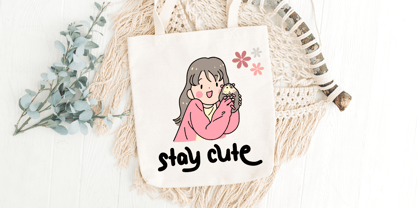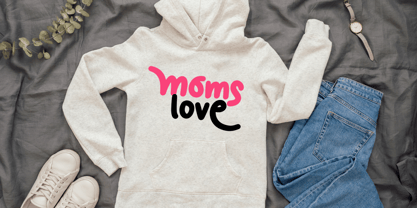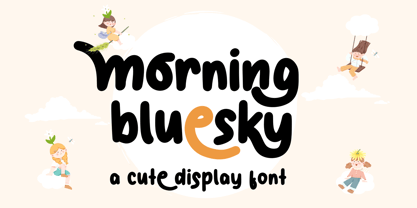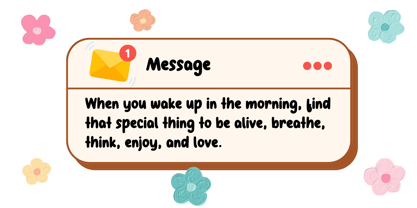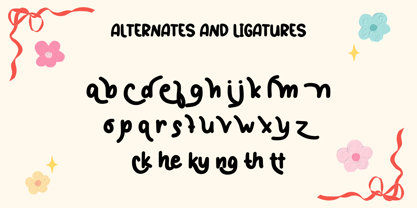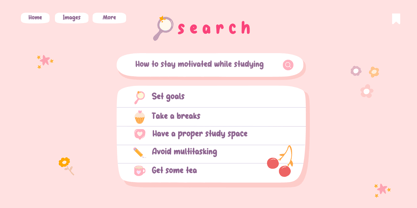
Morning Bluesky
The Morning Bluesky Font Family was designed by Dian Haniffan Hadi and published by Beary. Morning Bluesky contains 1 styles. More about this family
Morning Bluesky is a playful and stylish handwritten font with a modern and unique charm. Expertly crafted to become a true design favorite, this font has the power to elevate your creative projects to extraordinary heights!
Perfectly suited for a wide range of applications, Morning Bluesky is ideal for logos, branding projects, homeware designs, product packaging, mugs, quotes, posters, shopping bags, t-shirts, book covers, name cards, invitation cards, greeting cards, labels, photography, watermarks, special events, and so much more. It’s the perfect choice for adding a handwritten, elegant touch to any design.
Additionally, this typeface is perfect for elegant & luxurious logos, book or movie titles, fashion brands, magazines, clothes, lettering, and quotes.